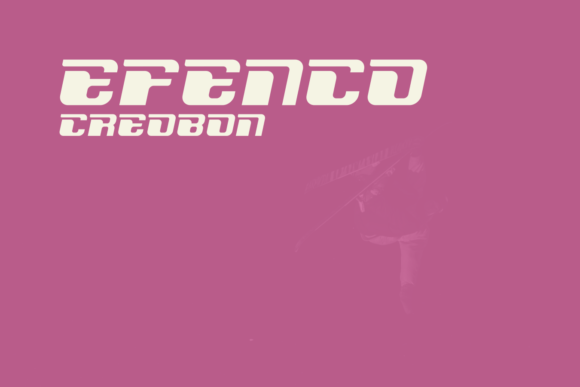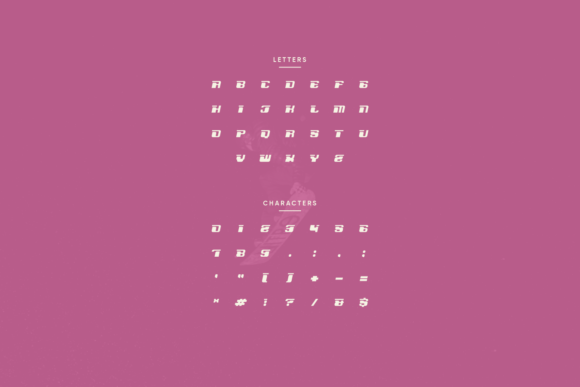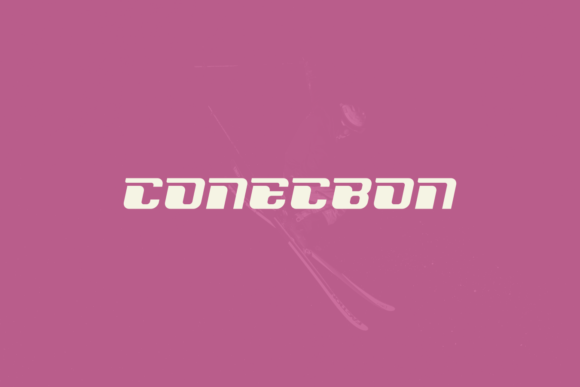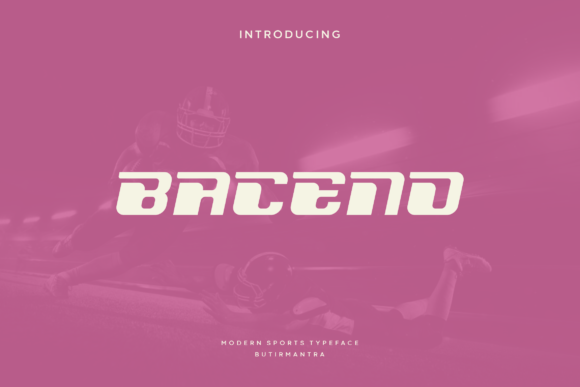
Get Ready to Score with the Baceno Font
Have you ever been in the midst of a creative brainstorm, surrounded by ideas and inspiration, and suddenly, a spark of genius hits you? For designers, this moment is often the result of discovering a game-changing font. And that’s exactly what the Baceno Font is – a modern, sporty display font that’s about to revolutionize your designs.
Baceno Font is designed to capture the energy and athleticism of sports, making it the perfect choice for team logos, event promotions, and sports-related designs. With its bold letterforms and stylish cutouts, this font exudes strength and style, guaranteed to stand out from the competition. Whether you’re a professional designer or a small business owner, the Baceno Font is a valuable addition to your design toolkit, offering endless possibilities for creative expression.
Baceno Font Key Features
- Unique Characteristics: Baceno Font features a unique blend of modern and vintage elements, with intricate details and subtle flair that set it apart from other sans-serif fonts.
Baceno Font Review
Overall, I’d say the Baceno font is a solid choice for designers, but it has its quirks. ✨ The font’s elegant and refined design makes it perfect for high-end branding and luxury products. The letterforms are well-balanced, and the weight progression is smooth. ✨ The font also supports a wide range of languages, making it a great option for global brands.
However, I have to mention a few limitations. ⚠️ The font’s italics can be a bit inconsistent, and some letters may look slightly off-kilter. ⚠️ Additionally, the font’s support for certain special characters is limited, which might be a problem for designers working with languages that rely heavily on these characters.
- Elegant and refined design
- Smooth weight progression
- Inconsistent italics
Overall, I’d recommend the Baceno font for designers who need a high-end, luxury feel, but are willing to work around its limitations. With some careful selection and styling, the font can produce amazing results.
Tips for Getting the Most Out of Baceno Font
To get the most out of the Baceno font, consider the following tips:
- Use the font in conjunction with other elegant and minimalist designs.
- Use the font to add a touch of sophistication and luxury to your designs.
The Baceno font is commonly used in:
- Luxury branding and advertising.
- High-end packaging and labeling.
Q: What is the font’s recommended line height and letter spacing?
The recommended line height for Baceno Font is 1.2-1.5 times the font size. For example, if you’re using a 14pt font size, the line height should be between 16.8-21pt. The recommended letter spacing is 0-2% of the font size. For example, if you’re using a 14pt font size, the letter spacing should be between 0-0.28pt.